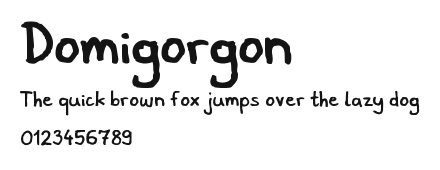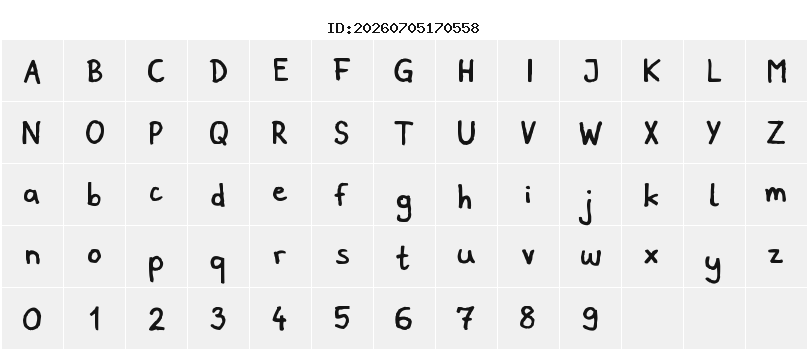
Domigorgon Preview
• Font Name: Domigorgon
• Font ID: Domino: Version 1.00
• Full Font Name: Domigorgon
• Version: Version 1.00 April 5, 2014, initial release
• PostScript Name: Domigorgon
• Character Count: 124
About Domigorgon.ttf
Domigorgon.ttf is a modern, elegant sans-serif font designed for ultimate readability and visual harmony. Perfect for branding, headlines, web design, and print materials.